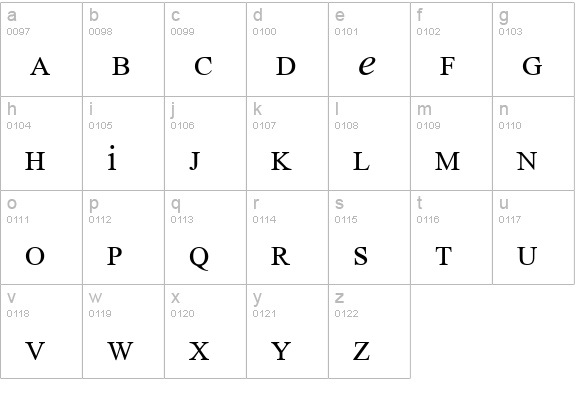
CK Chemistry Font Details
Introducing CK Chemistry font, a sleek and modern typeface perfect for all your design needs. With its clean lines and sophisticated aesthetic, CK Chemistry is ideal for creating eye-catching graphics, posters, and logos. This versatile font is sure to make your projects stand out from the rest. The best part? CK Chemistry is completely free to download at FontsMarket.com. Yes, you read that right - this high-quality font is available for free, so you can easily enhance your designs without breaking the bank. Don't miss out on the opportunity to add CK Chemistry to your font collection today!